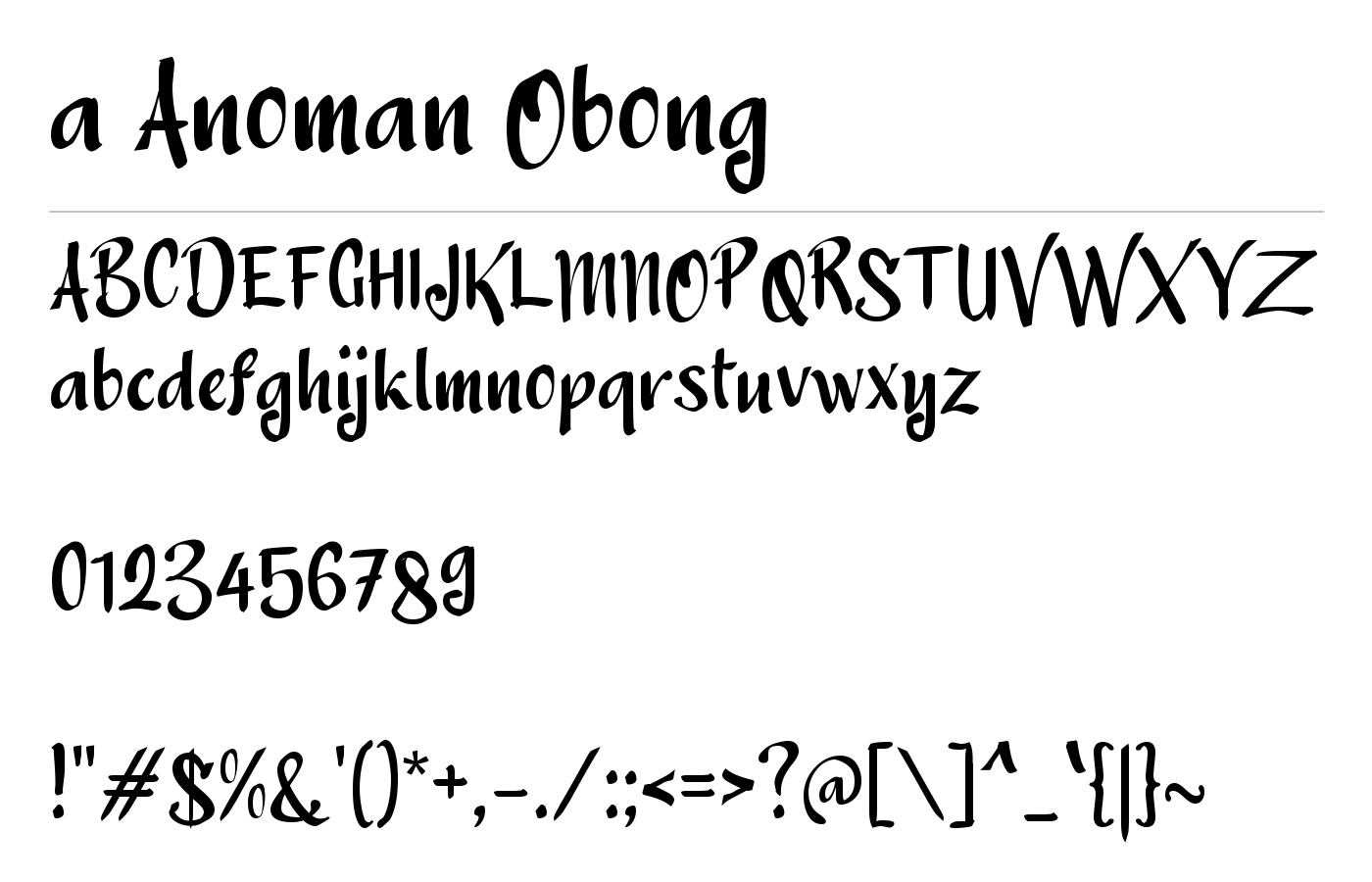
Anoman Obong is a lively and distinct handwritten serif font that features playful, irregular strokes with medium contrast and a subtle calligraphic touch. Its quirky letterforms and varied shapes convey a casual yet artistic vibe, making it ideal for creative projects, branding, and editorial design where personality and warmth are desired. This font works well in headlines and logos, adding a friendly and approachable feel to any visual message.
a Anoman Obong Font
About a Anoman Obong Font